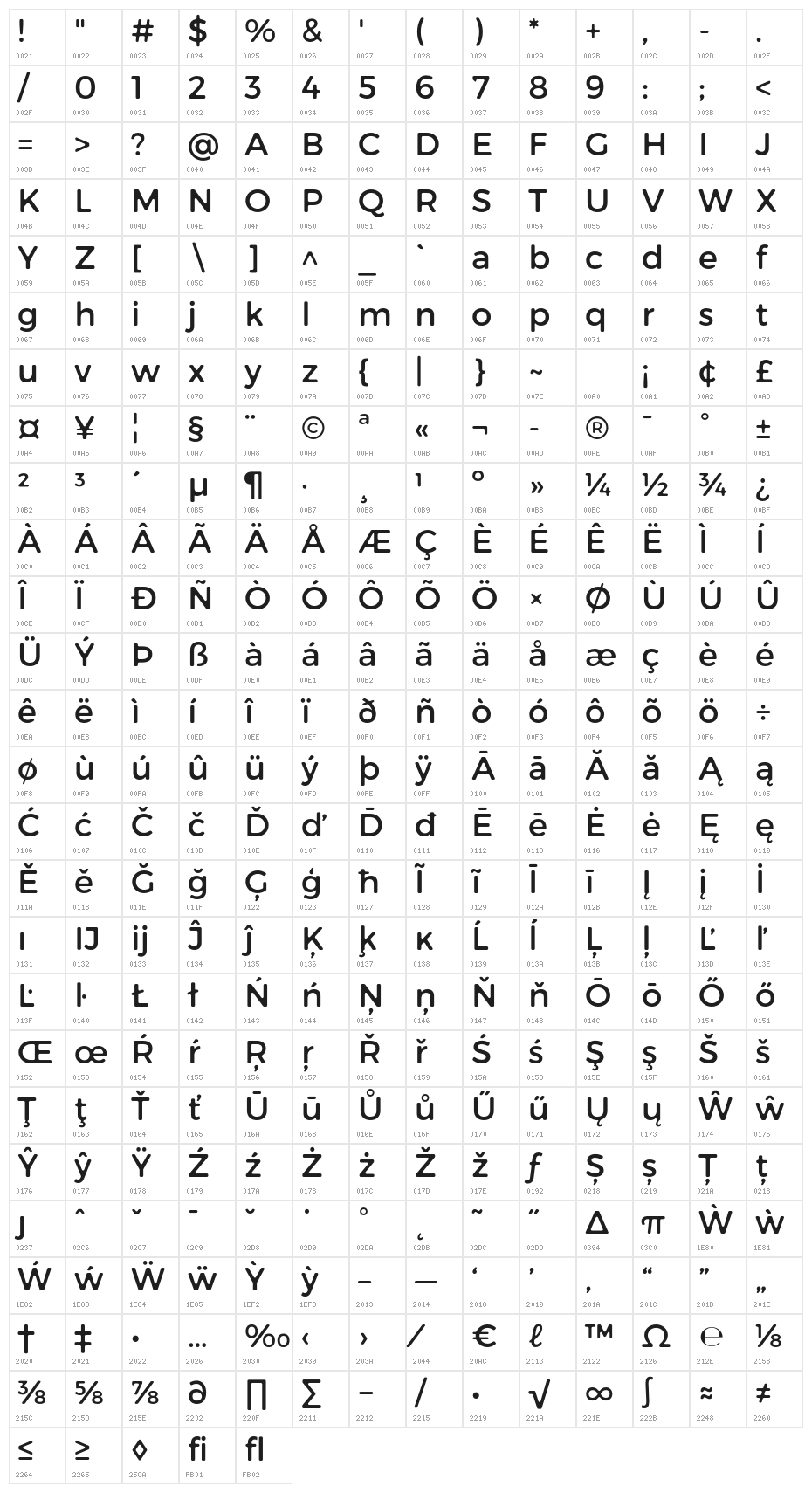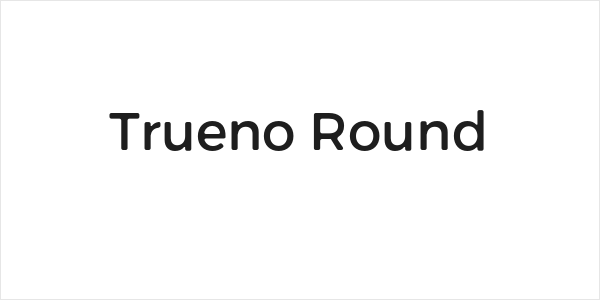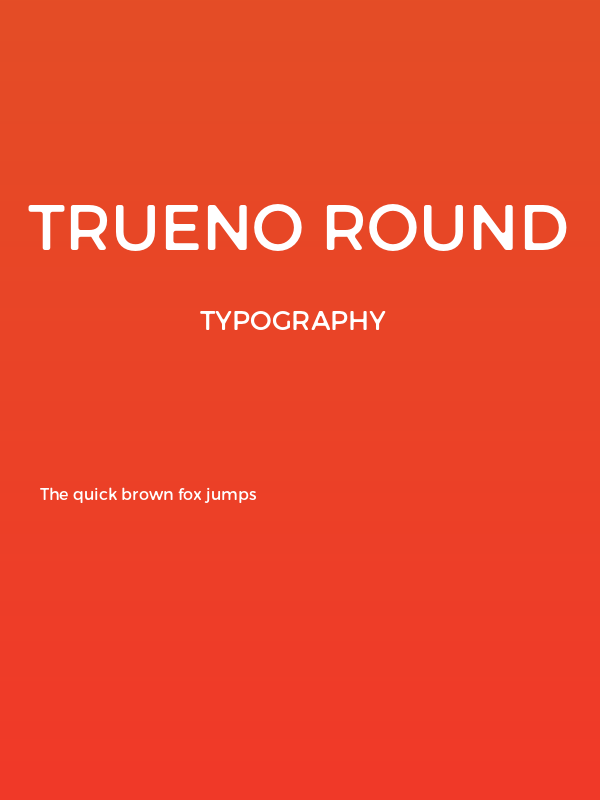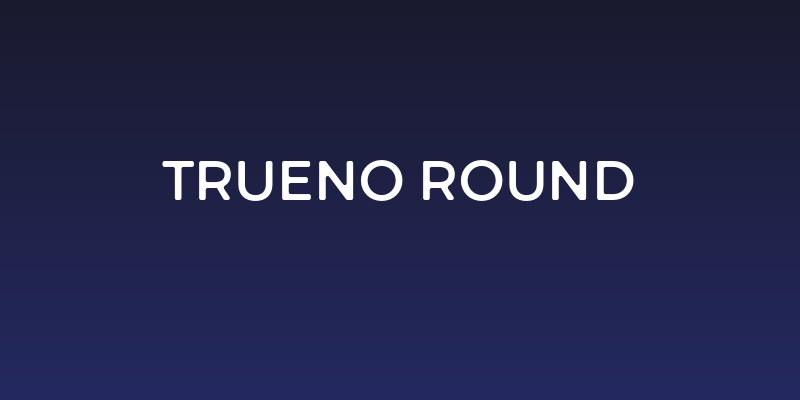
Trueno Round Font
| 使用场景 | Headlines, Body text, Logos |
| 推荐项目 | Ideal for branding, web design, advertising, and user interfaces where a modern and friendly look is desired. |